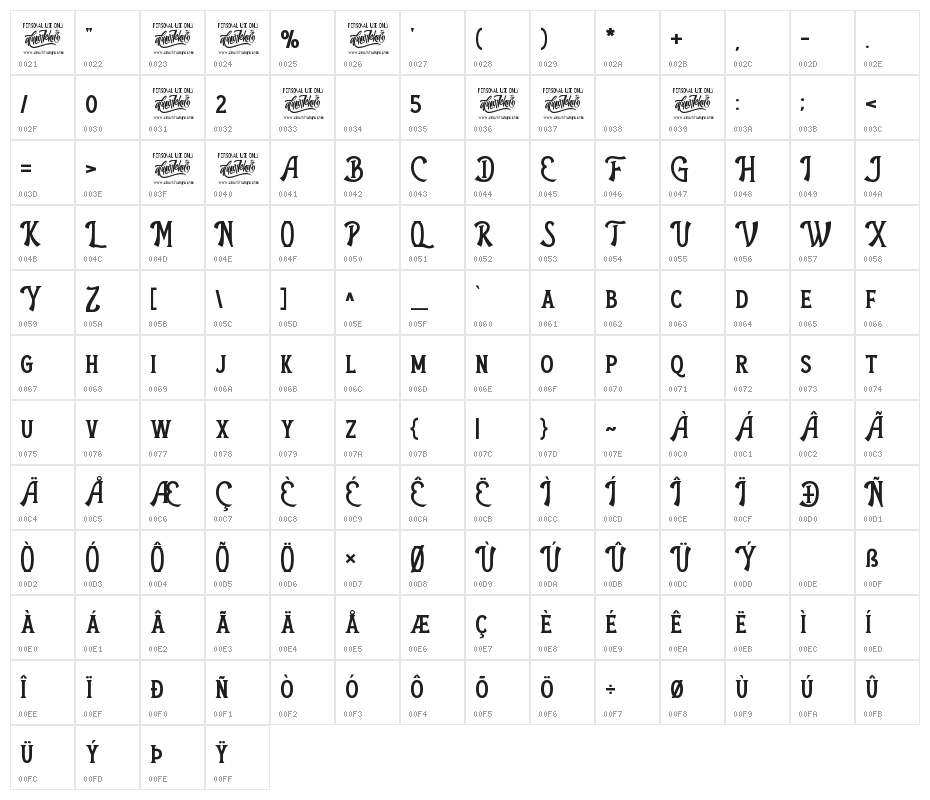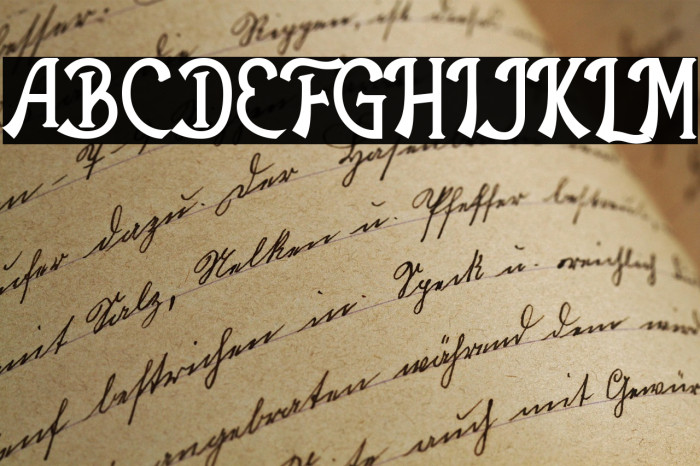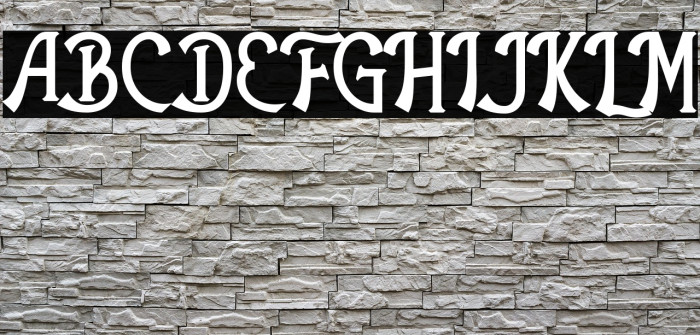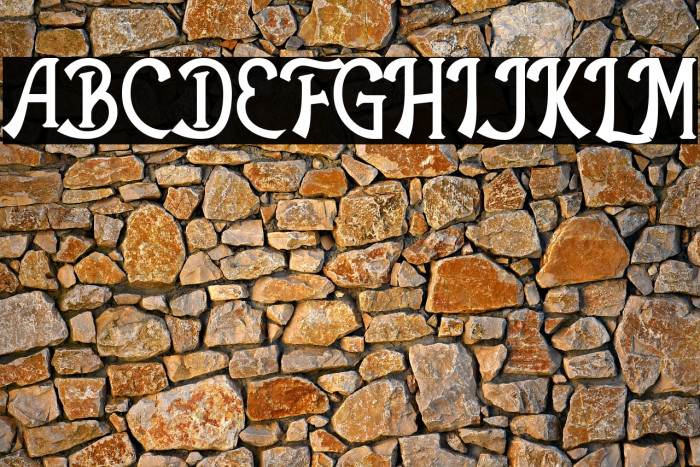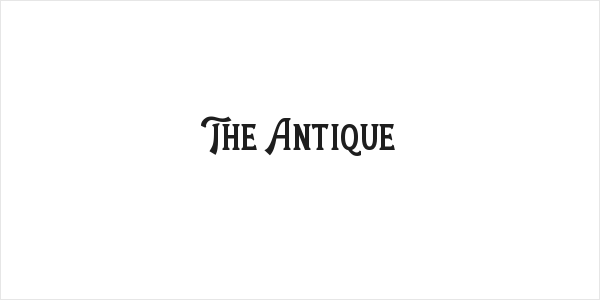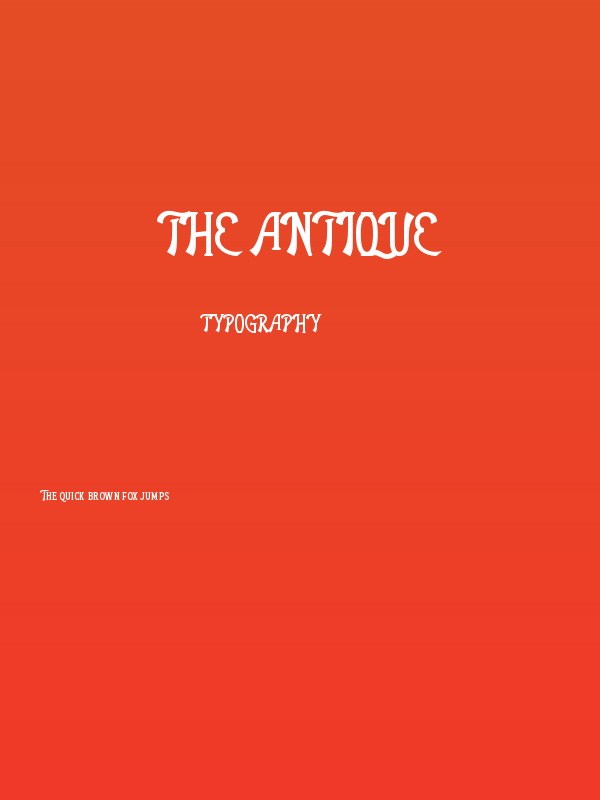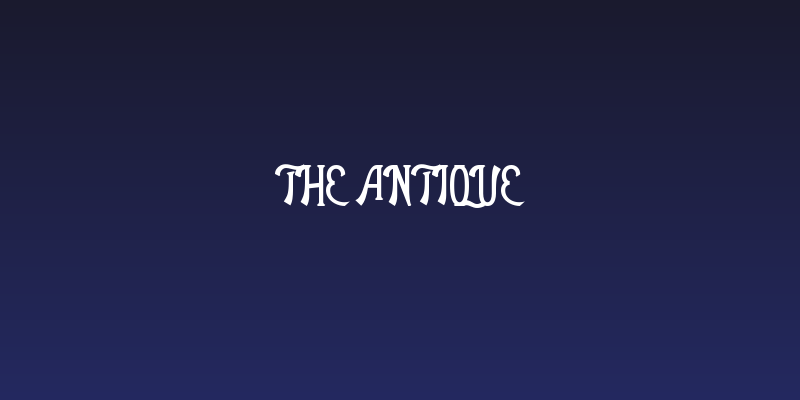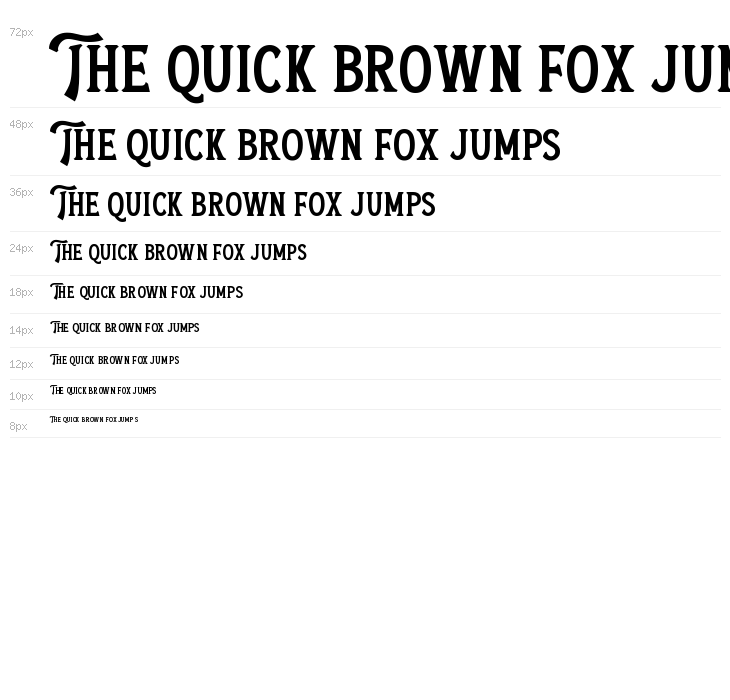
The Antique Font
The Antique Description
This font features a bold and decorative style with a vintage flair. The uppercase letters have a distinct, flowing design with slight serifs, giving them an elegant yet bold appearance. The lowercase letters maintain a consistent style, complementing the uppercase with their own unique curves and flourishes. The numerals and special characters are designed to match the overall aesthetic, ensuring a cohesive look across all text. This font is perfect for creating eye-catching headlines or logos that require a touch of sophistication and historical charm.
| Proposed Projects | Ideal for vintage-themed posters, branding, logos, and decorative headlines. |